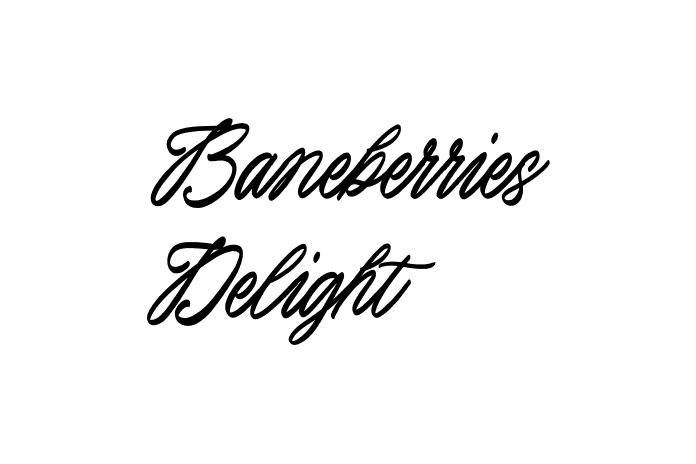
Billy Whites Font
Billy Whites is a semi-cursive brush font style that appears twisted into beautiful pieces. This font is a great fit for all logos, branding, social media.
Typeface classification Brush,Script